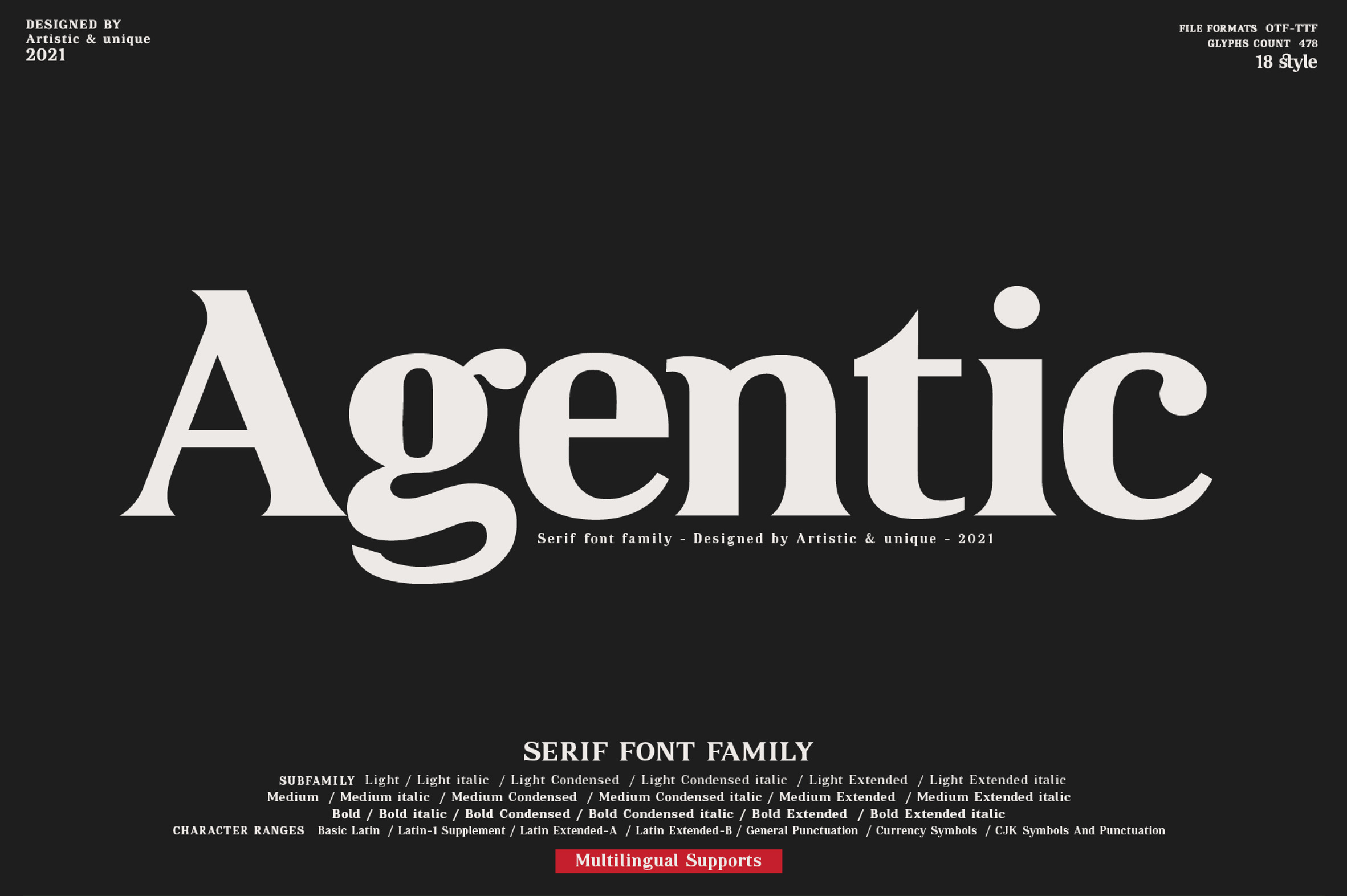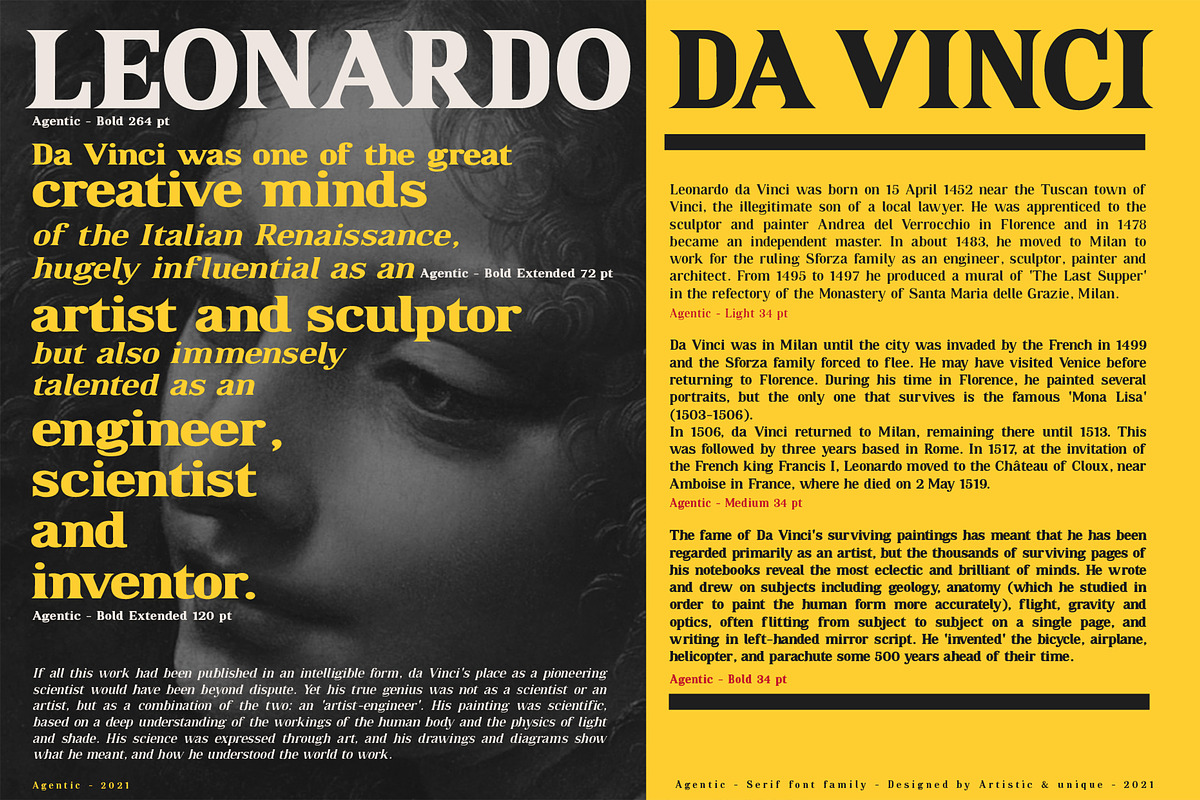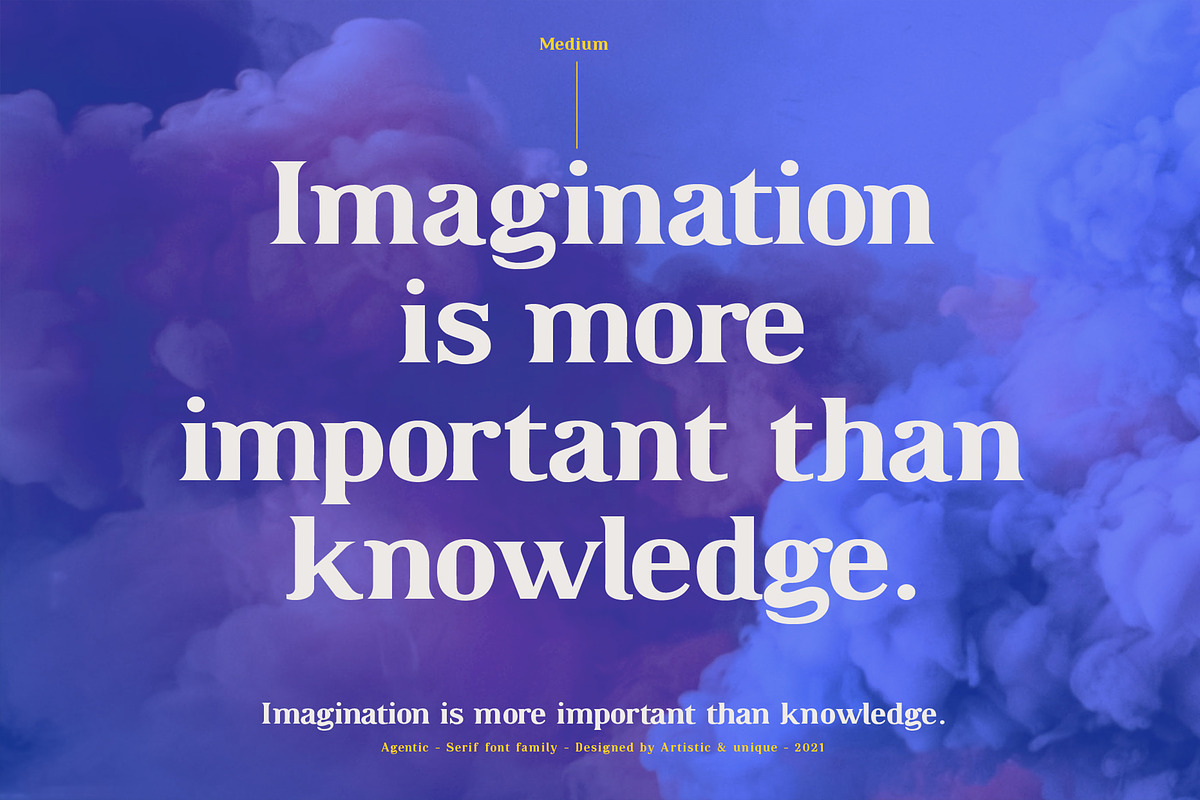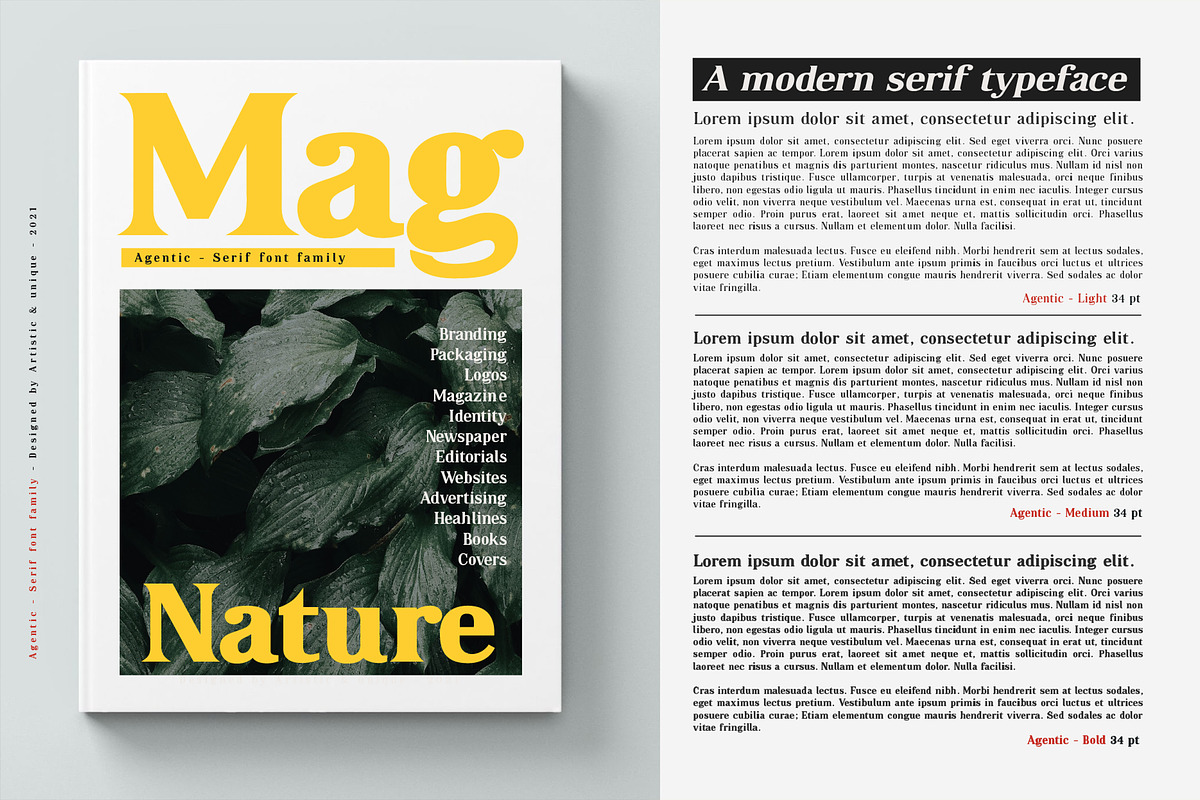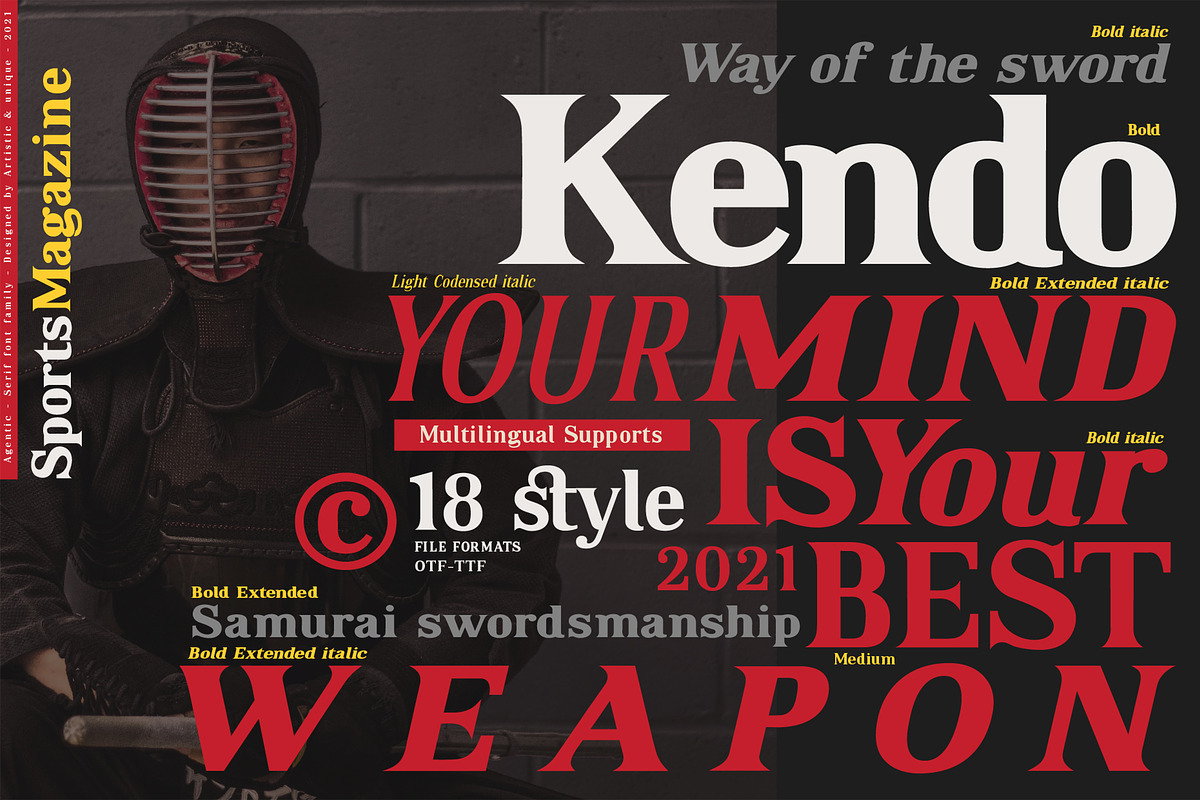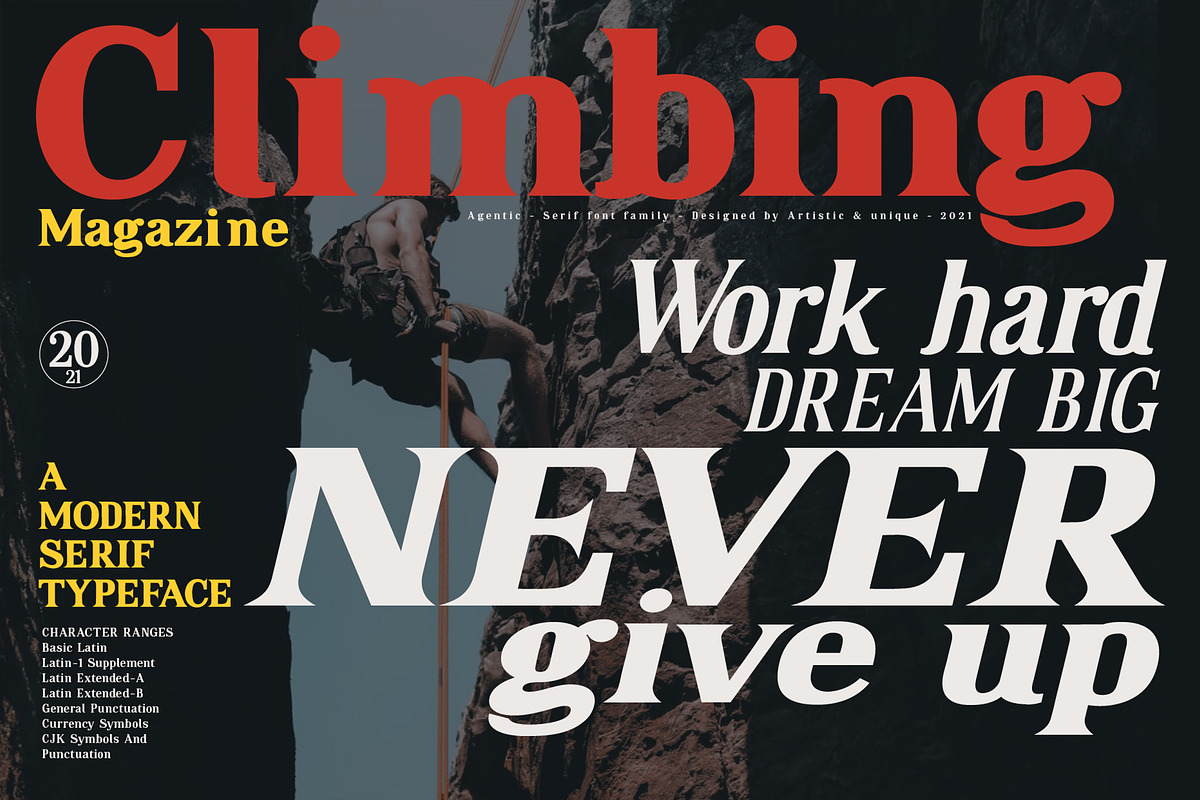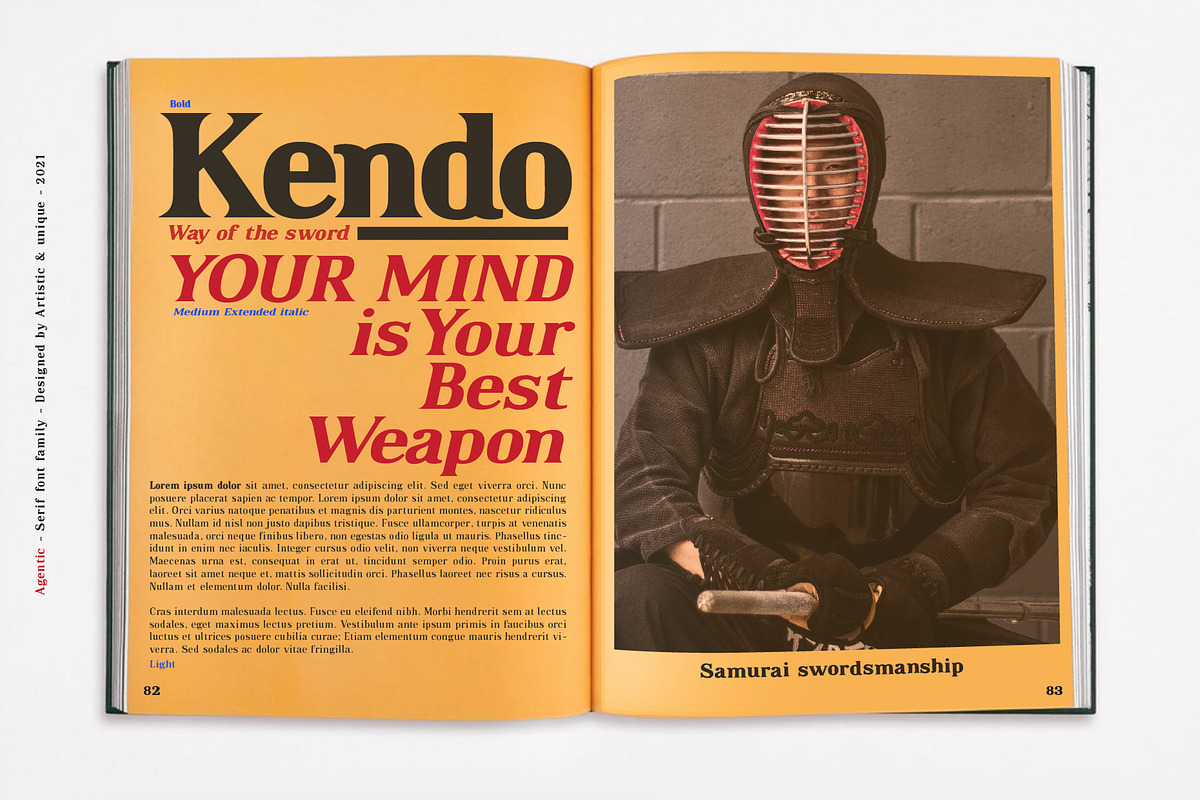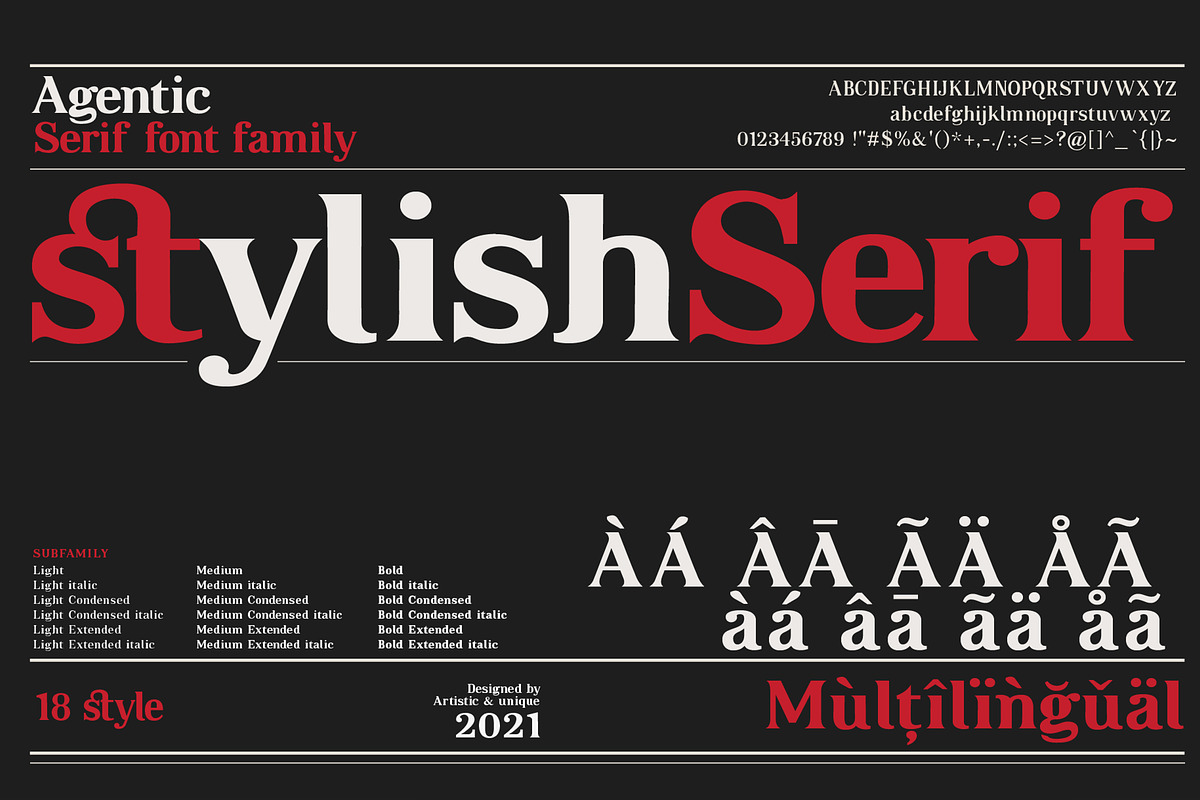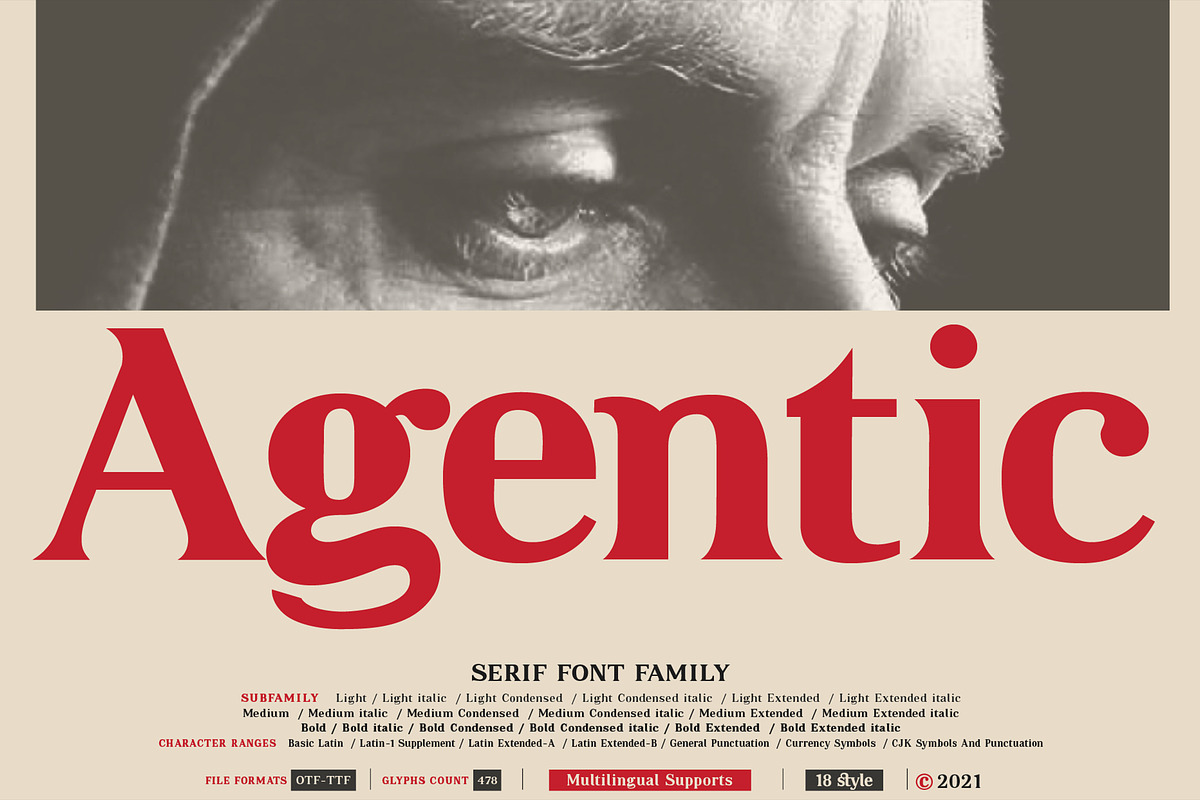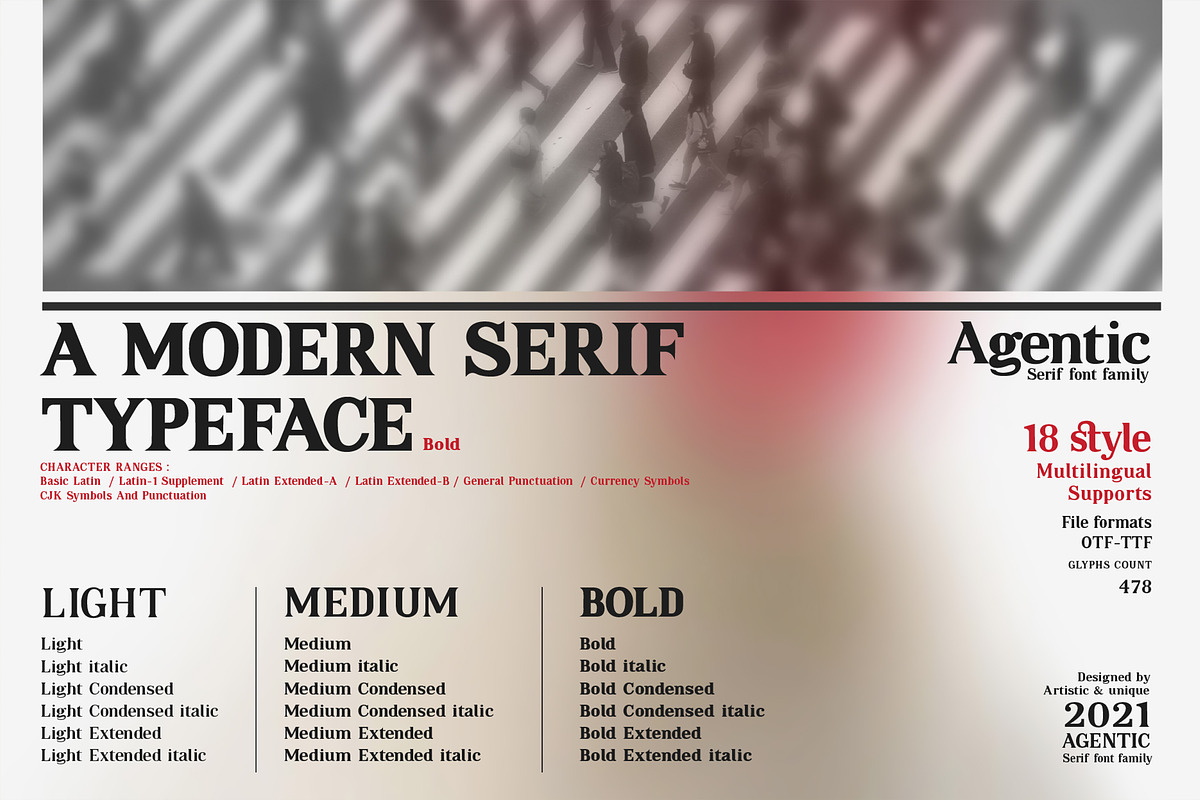
Agentic - Serif font family
Agentic - Serif font family - Multilingual supports, 18 Style - OTF,TTF
Agentic Serif font family has 18 styles and multi-language support. It is ideal for creating your articles thanks to its easy readability. The combination of sharp corners and soft turns in the characters offers alternatives to create different moods in your projects.
You can create creative and stylish designs with combinations of upper and lowercase letters in the title and text.
This font helps you discover the best mood for your projects, from body text to big headlines, classic to modern and bold looks.
Well suited for books and magazines, magazine covers, editorials, headlines, websites, logos, invitations, branding, advertisements and more.